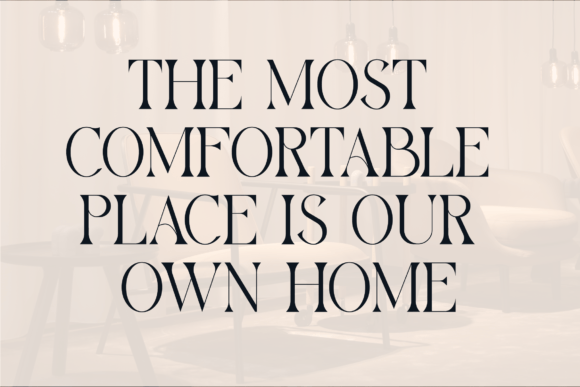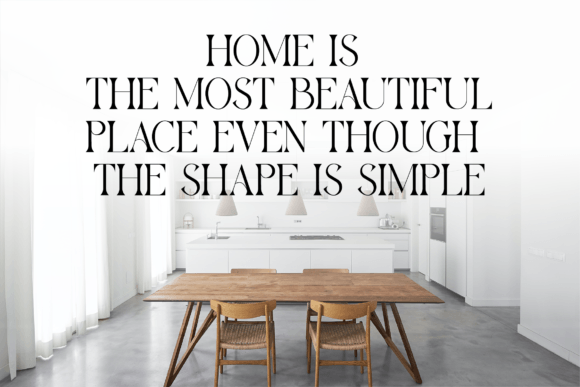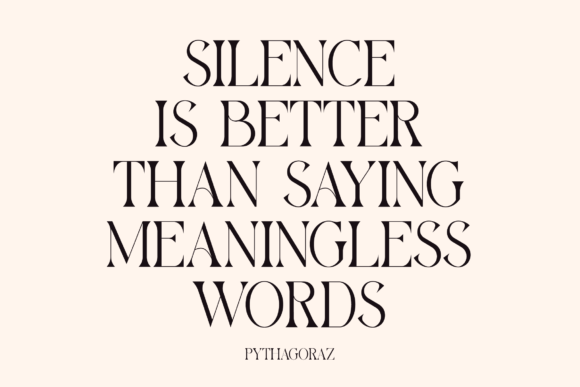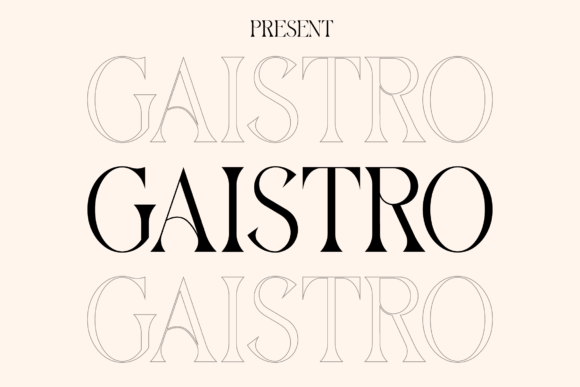
Introducing Gaistro Font: Elevate Your Designs with Elegance and Sophistication
Are you looking for a font that exudes luxury, modernity, and uniqueness? Look no further than Gaistro Font, a stylish serif typeface that is perfect for designers and crafters seeking to add a touch of elegance to their projects. In this article, we’ll dive into the world of Gaistro Font, exploring its features, uses, and benefits, and why it’s an excellent choice for your next design venture.
What is Gaistro Font?
Gaistro Font is a meticulously crafted serif font that boasts a modern style and a distinctive look. Its elegant lines, refined curves, and precise letter spacing make it an ideal choice for designs that require a high level of sophistication. Whether you’re working on a luxury brand, a fashion magazine, or a book title design, Gaistro Font is sure to impress.
Key Features of Gaistro Font
• Modern Style: Gaistro Font features a contemporary design that is perfect for designs that require a fresh and modern look.
• Unique Look: The font’s distinctive style sets it apart from other serif fonts, making it an excellent choice for designers seeking to create a lasting impression.
• Elegant and Luxurious: Gaistro Font exudes luxury and sophistication, making it perfect for high-end brands, fashion designs, and elegant logos.
• Versatile: The font is suitable for a wide range of design projects, including book or movie title designs, fashion brands, magazines, clothing, fonts, quotes, and more.
Uses of Gaistro Font
Gaistro Font is an incredibly versatile typeface that can be used in various design projects. Here are some of the most popular uses of this elegant font:
• Elegant Logos: Create stunning logos for luxury brands, fashion companies, or high-end products with Gaistro Font.
• Book or Movie Title Designs: Add a touch of sophistication to your book or movie titles with Gaistro Font’s elegant and refined design.
• Fashion Brands: Use Gaistro Font to create stylish and luxurious branding for fashion companies, including clothing labels, accessories, and beauty products.
• Magazines and Publications: Gaistro Font is perfect for magazine titles, article headings, and other design elements that require a high level of elegance.
• Clothing and Apparel: Create stunning clothing labels, tags, and packaging with Gaistro Font’s modern and stylish design.
Benefits of Using Gaistro Font
Gaistro Font offers numerous benefits to designers and crafters, including:
• Unique Design: The font’s distinctive style ensures that your designs stand out from the crowd.
• Elegance and Sophistication: Gaistro Font adds a touch of luxury and refinement to any design project.
• Versatility: The font can be used in a wide range of design projects, from elegant logos to stylish clothing labels.
• Easy to Read: Gaistro Font is designed to be highly legible, making it perfect for body text and headings.
In conclusion, Gaistro Font is an exceptional serif typeface that offers a unique blend of modernity, elegance, and sophistication. Its versatility, legibility, and stylish design make it an excellent choice for designers and crafters seeking to elevate their designs. Whether you’re working on a luxury brand, a fashion magazine, or a book title design, Gaistro Font is sure to impress. So why wait? Download Gaistro Font today and take your designs to the next level!